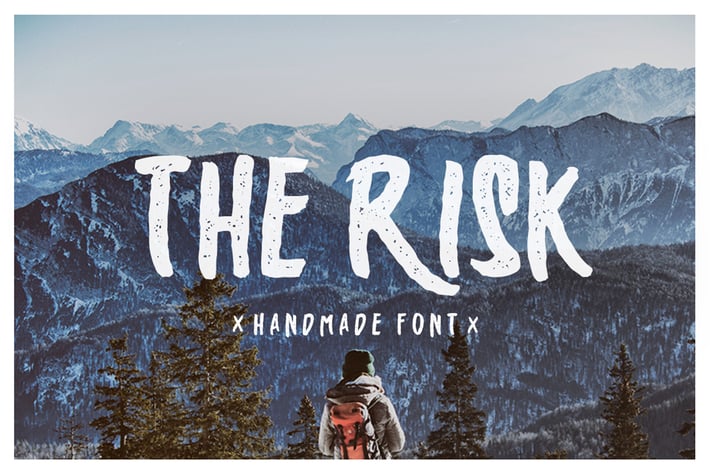
The Risk - Handmade font
We Provide You one of the best Stylish Hand Written Script.
Best match for logos, header, Titles, Prints & other Creative process possibilities.
Create a Extraordinary Typography / lettering results by using The Risk - Handmade Fonts